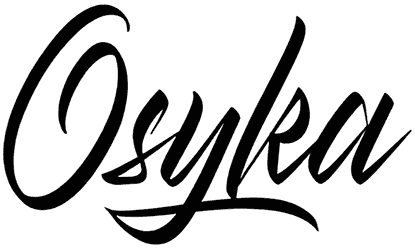
Osyka Font
Are you in search of a font with a strong, flirtatious personality that will take your work to the next level? So, Osyka can complete your work. This complex and handmade script font can be suitable for all kinds of projects, from posters to packaging, tattoos, t-shirt printing, and invitations.
Osyka includes only the numbers 0, 2, 6, and 9, but it is always ready to work and can create an organic and personal touch in your projects.